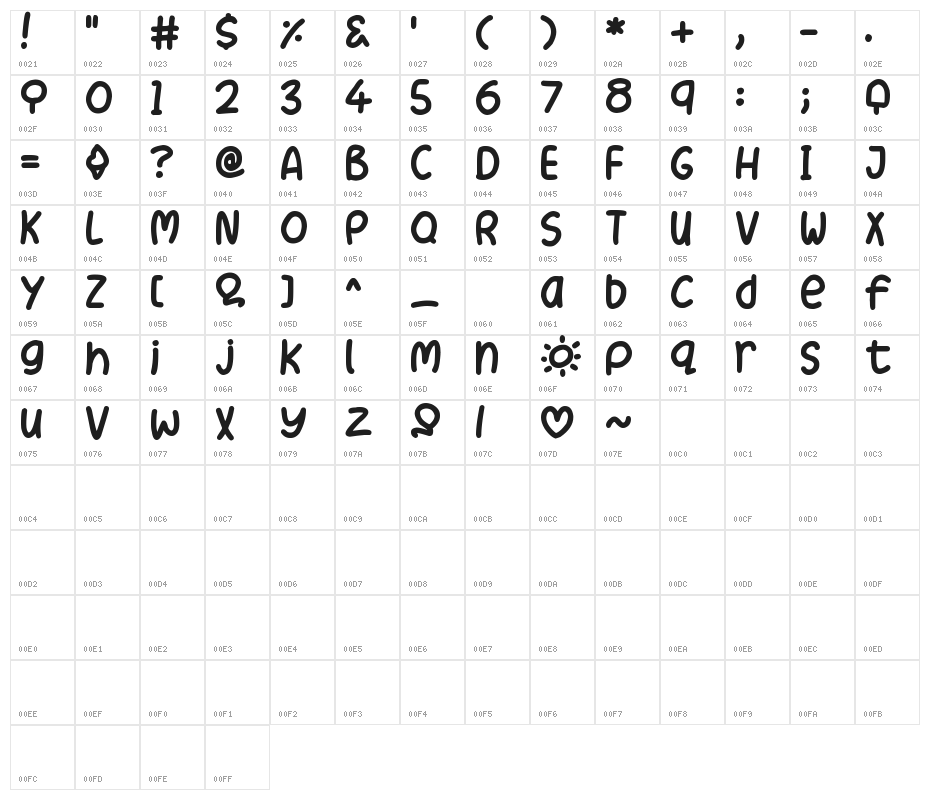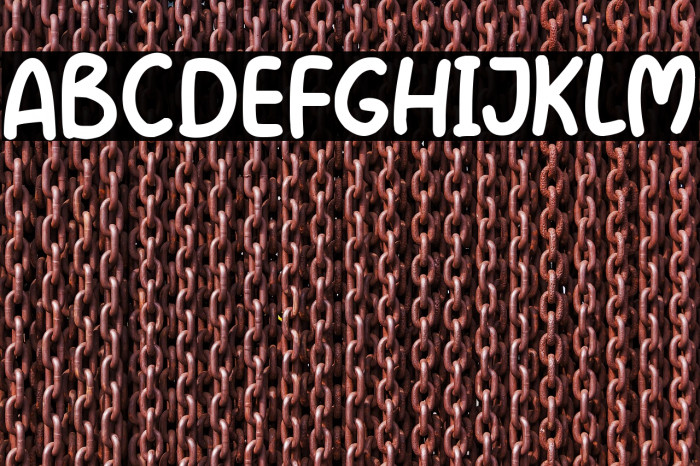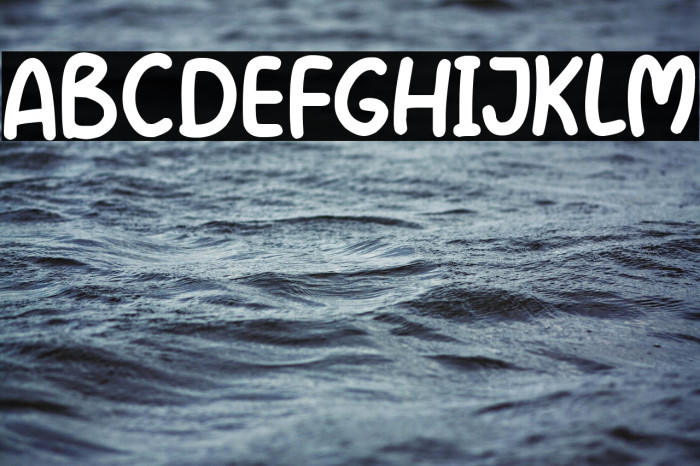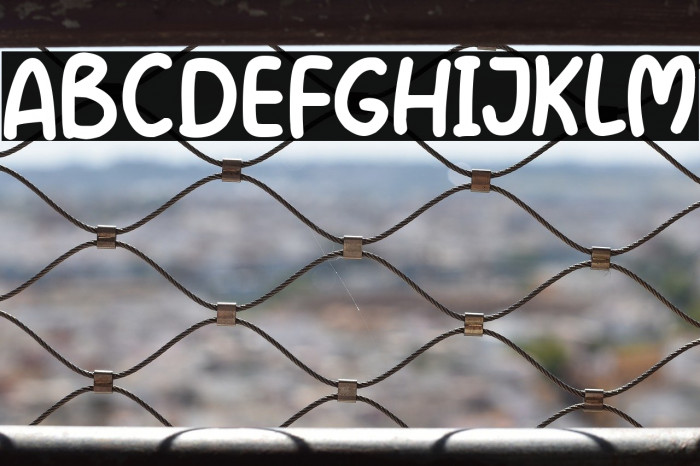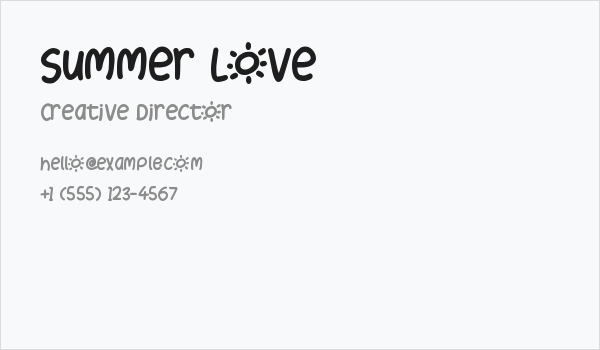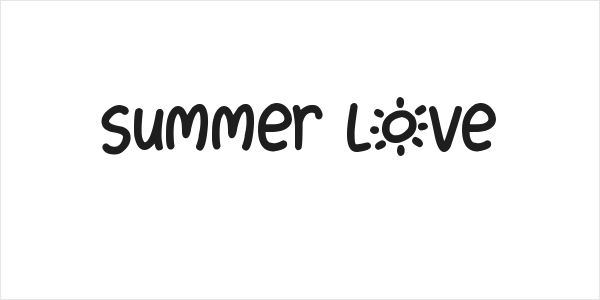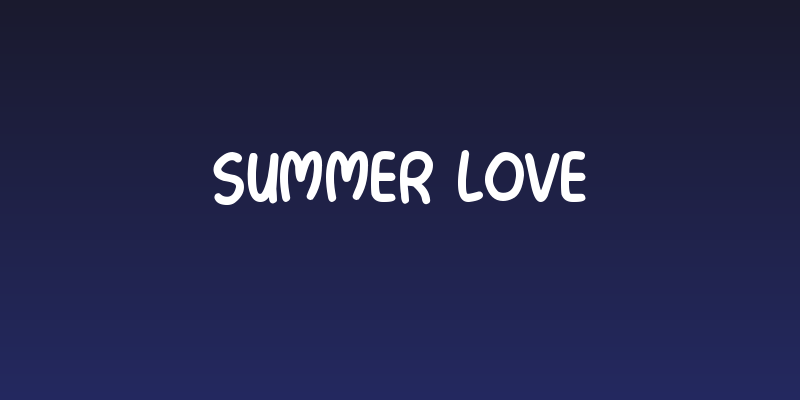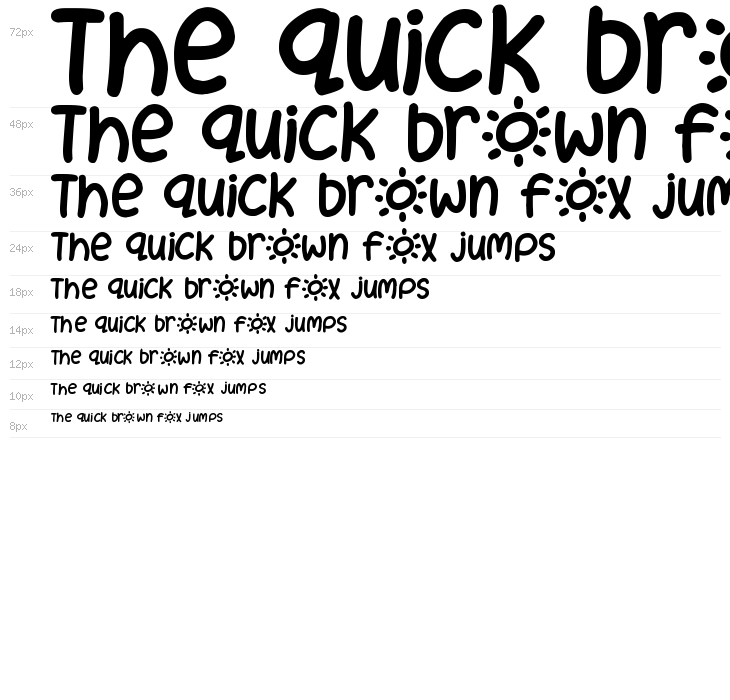
Summer Love Font
Summer Love Description
This playful and whimsical font features rounded, bubbly characters that exude a sense of fun and creativity. The letters are bold and slightly irregular, giving them a hand-drawn appearance that adds a personal touch. The font includes both uppercase and lowercase letters, numerals, and a variety of special characters. Its thick strokes and rounded edges make it highly legible, while the unique style ensures it stands out in any design. The font's informal and friendly vibe makes it perfect for projects that aim to convey warmth and approachability.
| Proposed Projects | Ideal for children's books, playful branding, greeting cards, and casual invitations. |